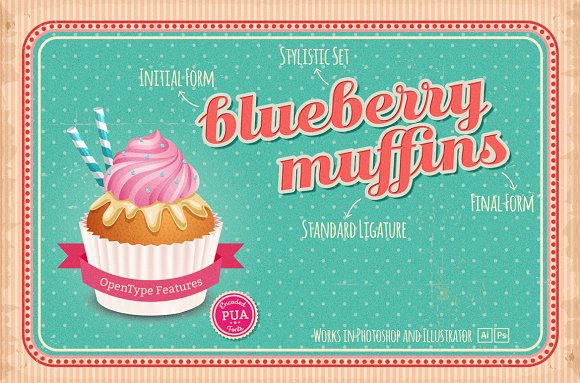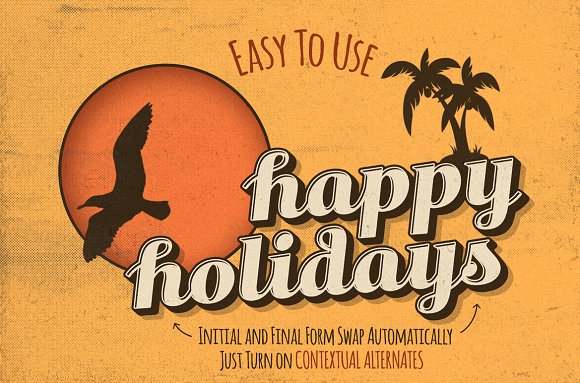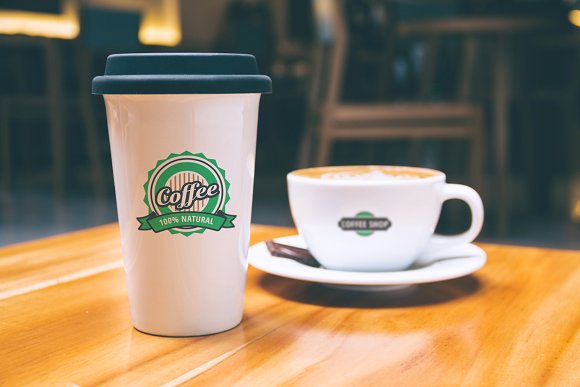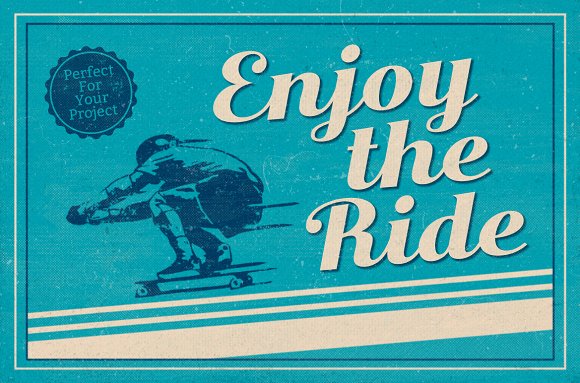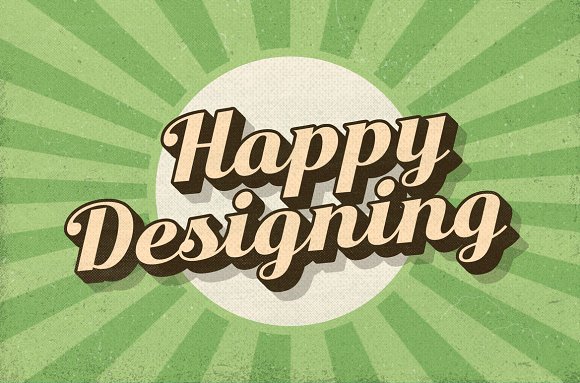
Unleash the Charm of Vintage Typography
Have you ever been rummaging through old design archives, and suddenly, a forgotten gem catches your eye? That’s exactly what happened to many designers when they stumbled upon the Berry Juice Font. Created by the talented Annenkov Dmitriy, this vintage-inspired font is a masterclass in nostalgic typography.
With its distressed texture and subtle imperfections, the Berry Juice Font is a perfect choice for designers looking to add a touch of retro charm to their projects. Whether you’re working on a branding project, a magazine cover, or a social media campaign, this font is sure to bring a unique and captivating feel to your designs. Its versatility and character make it a valuable addition to any designer’s toolkit.
Berry Juice Font Key Features
- Font Style: Script, handwritten font with a unique, playful feel.
- Unique Characteristics: The font features a dynamic, flowing script style with a mix of uppercase and lowercase letters, making it ideal for creative and eye-catching designs.
Berry Juice Font Review
I must say, I was excited to dive into the Berry Juice Font and see what it had to offer. As a designer, I’m always on the lookout for unique and stylish fonts that can elevate my designs. ✨ One thing that stood out to me was the font’s playful and whimsical feel, which is perfect for creating eye-catching headlines and titles.
Another thing I liked was the font’s versatility. ✨ It comes in a range of weights, from light to bold, making it easy to use in various design contexts. Whether you’re creating a bold and eye-catching display or a subtle and elegant text, Berry Juice Font has got you covered.
- ⚠️ The font’s readability can be a bit of an issue, especially at smaller font sizes. It’s not ideal for long blocks of text, but it works well for shorter passages.
- ⚠️ The font’s consistency can be a bit off, with some letters looking more rounded than others. This can be a bit distracting, especially in larger font sizes.
Overall, I think Berry Juice Font is a great addition to any designer’s toolkit. While it has some limitations, its unique style and versatility make it a great choice for a wide range of design projects.
The Berry Juice Font is perfect for adding a touch of whimsy and playfulness to your designs. It’s commonly used in:
- Children’s book covers and illustrations.